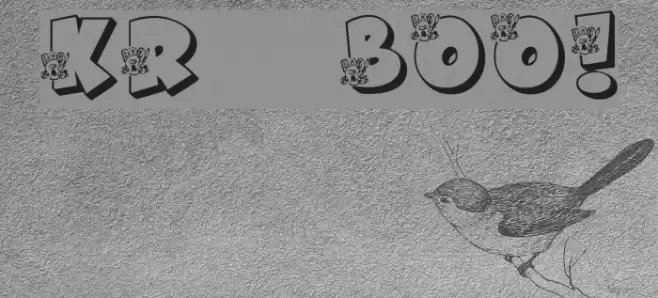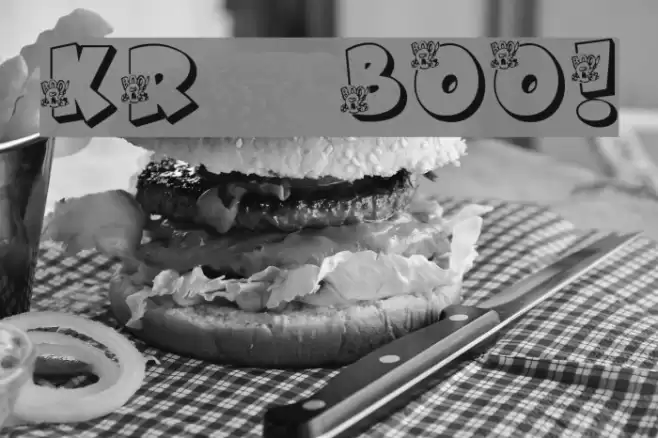
KR Boo! Font
KR Boo! Description
This playful and bold font features a unique design with cartoonish elements, making it ideal for fun and creative projects. The uppercase letters are decorated with whimsical patterns, adding a touch of humor and lightheartedness. The characters are outlined with a thick black border, enhancing their visibility and impact. The font's style is reminiscent of comic book lettering, with exaggerated forms and a lively appearance. Its distinctiveness lies in the combination of bold shapes and decorative elements, making it stand out in any design. The font is perfect for projects that require a touch of fun and creativity, such as children's books, playful posters, or themed party invitations.
A playful, bold font with cartoonish elements and decorative patterns from Uncategorized fonts.
- Proposed Projects: Ideal for children's books, playful posters, themed party invitations, and comic-style designs.
- Overall Style: Playful, Comic